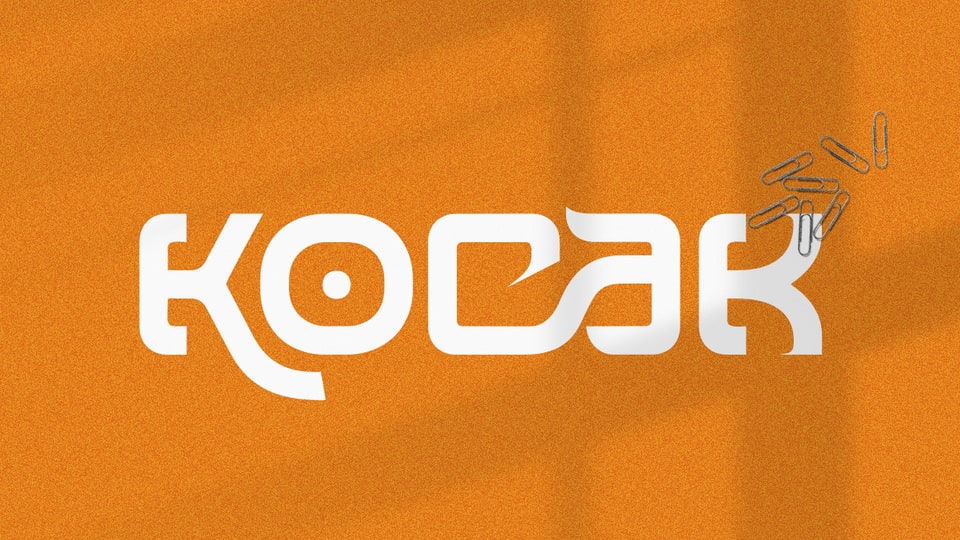
Download Kocak font, a unique modern semi bold and elegant decorative typeface with a fun, attractive style look. This font equipped with extra ligatures and alternates.